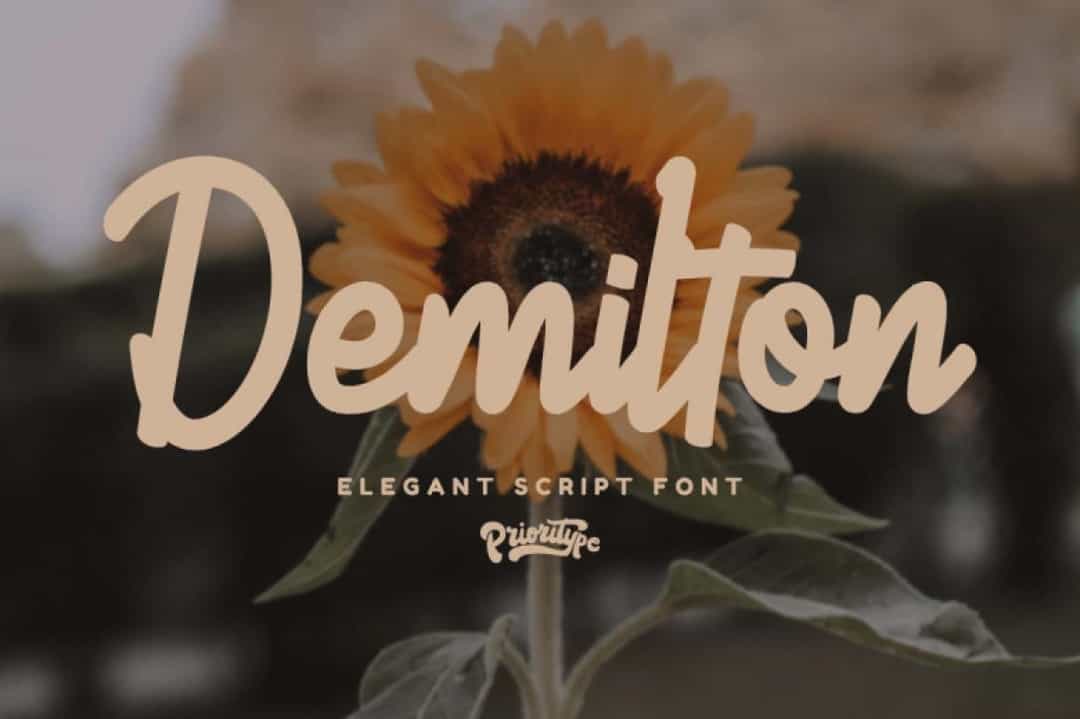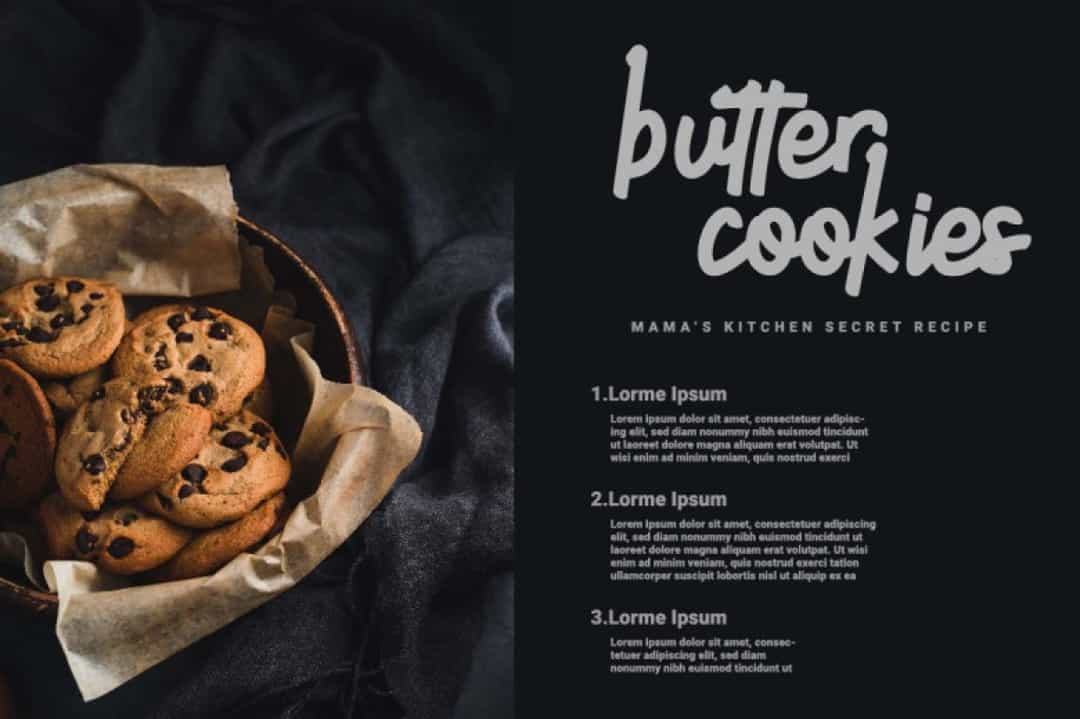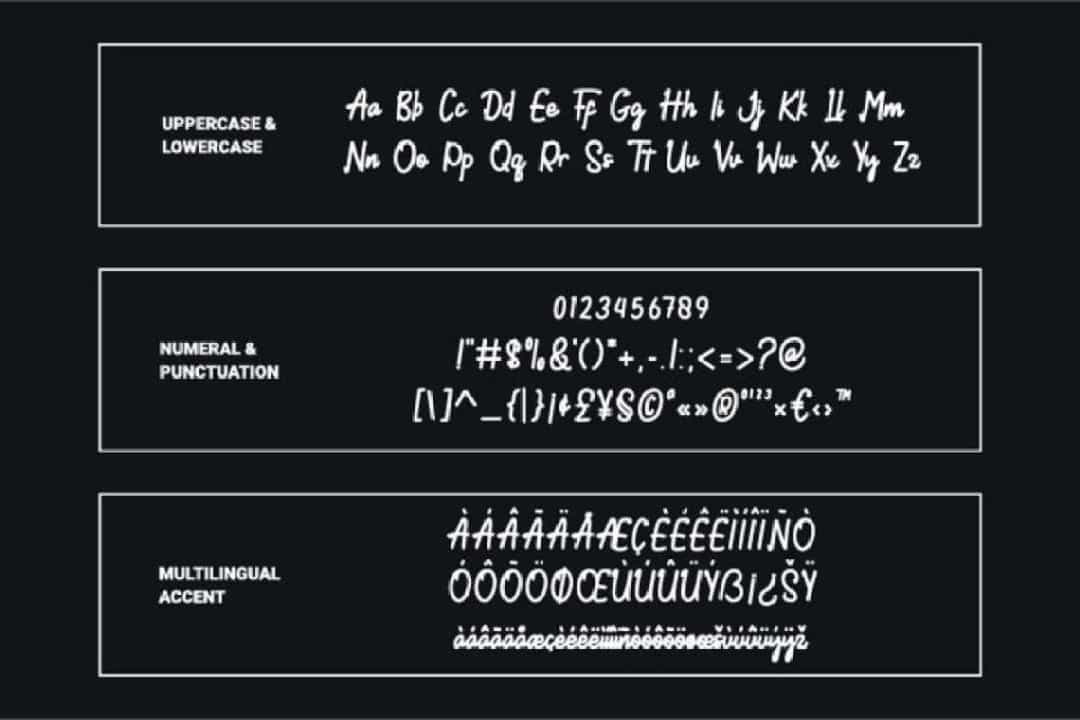
Demilton is a stylish and restrained font that will be an ideal addition to your design works. Great for wedding invitations, ecommerce packaging, branding logos, posters, quotes, landing pages and much more; have a look at some examples above.